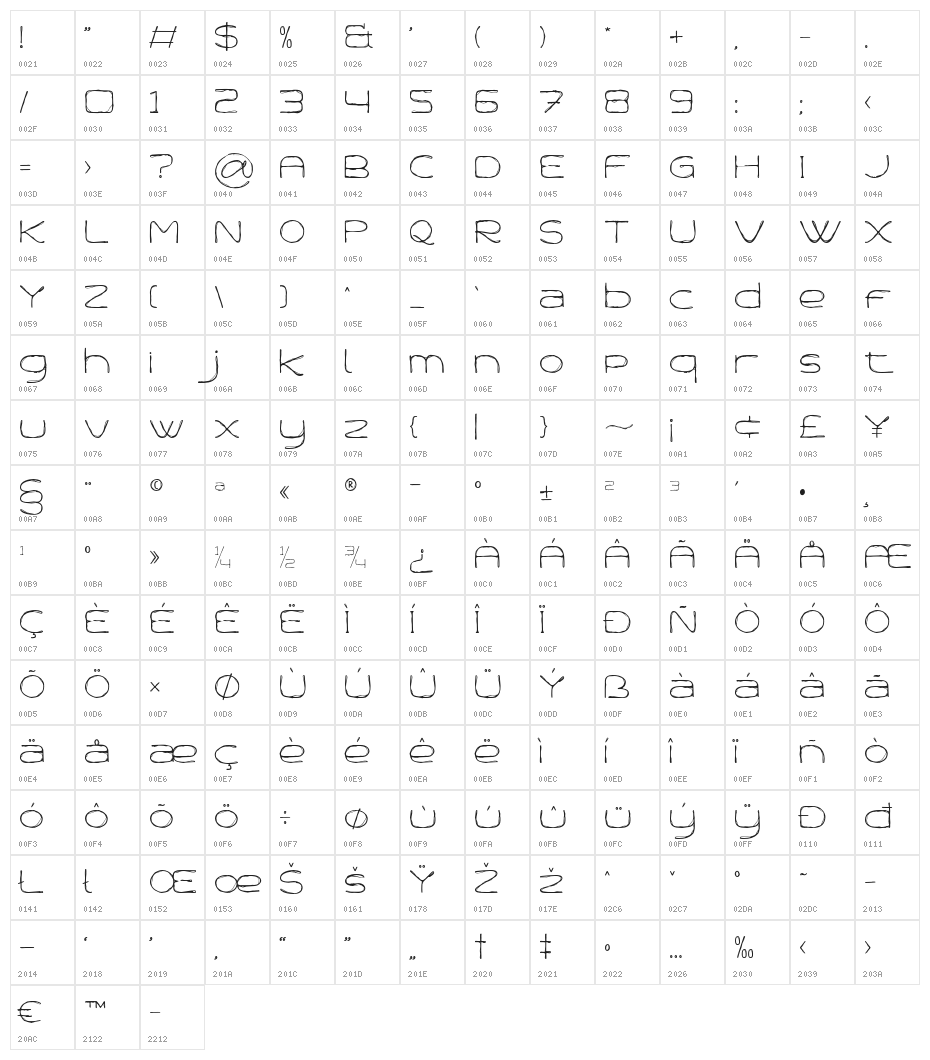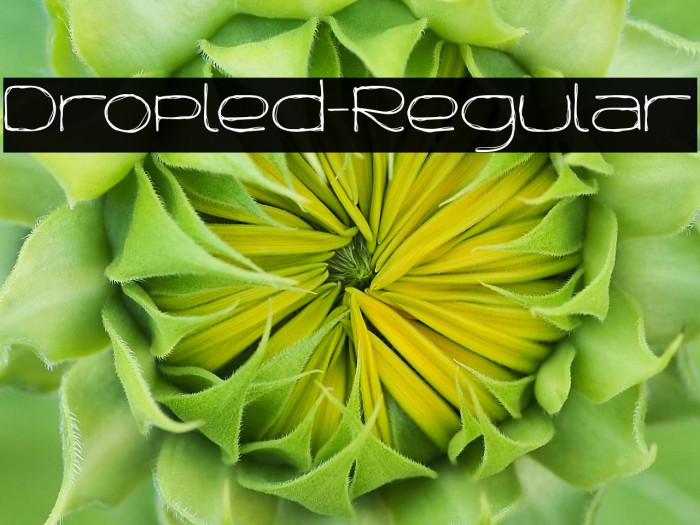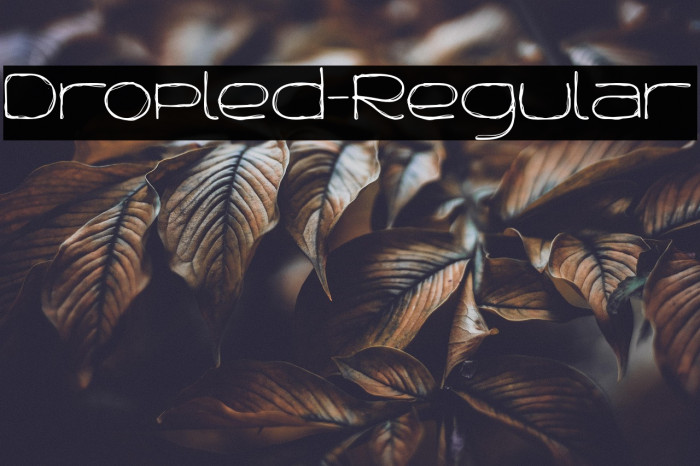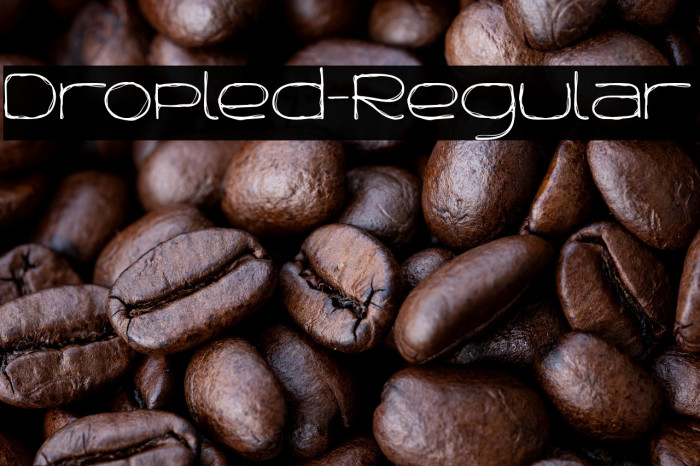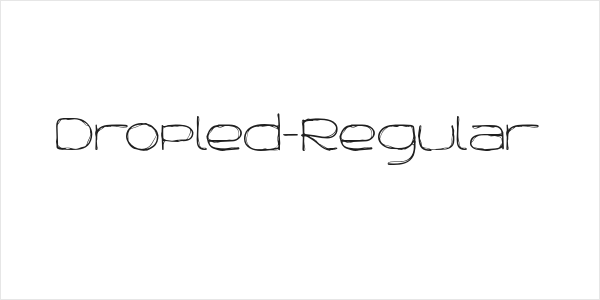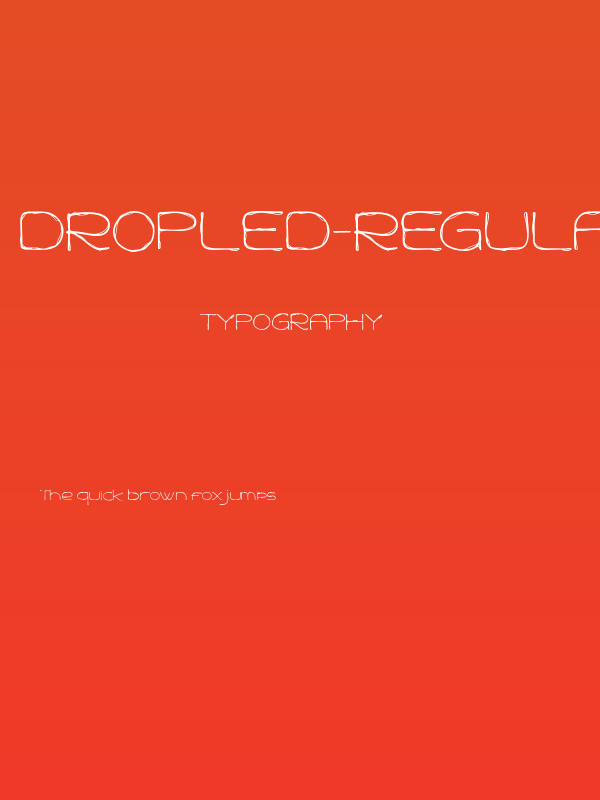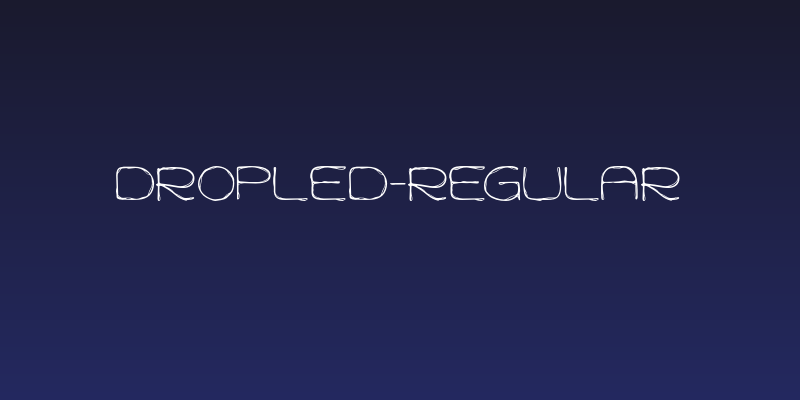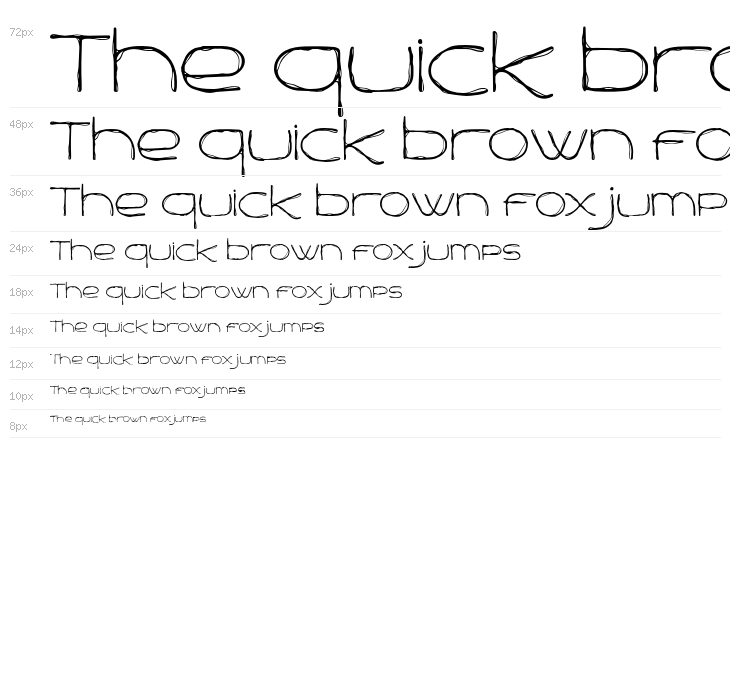
Dropled-Regular Font
Dropled-Regular Description
This font features a unique, hand-drawn style with an organic and fluid appearance. Each character is crafted with a slightly irregular, wavy line that gives it a playful and artistic feel. The letters are evenly spaced with a consistent height, maintaining readability while adding a touch of whimsy. The font includes a full set of uppercase and lowercase letters, numbers, and a variety of special characters, making it versatile for creative projects. Its distinct style is reminiscent of ink or brush strokes, adding a personal and informal touch to any text.
| Use Case | Logos, Headlines, Artistic projects |
| Proposed Projects | Ideal for creative projects such as greeting cards, posters, children's books, and artistic branding. |